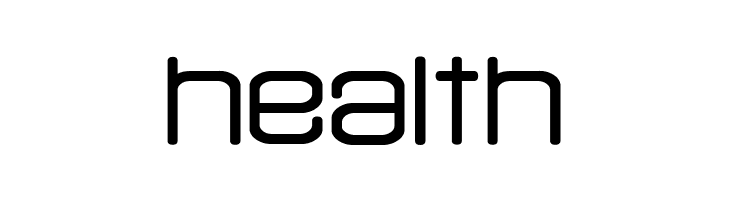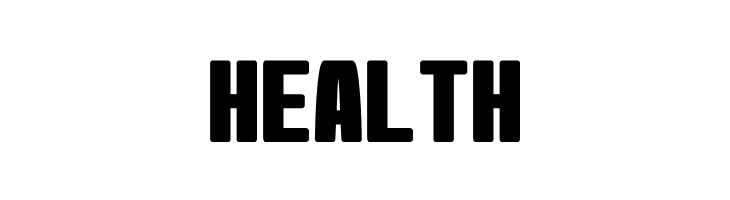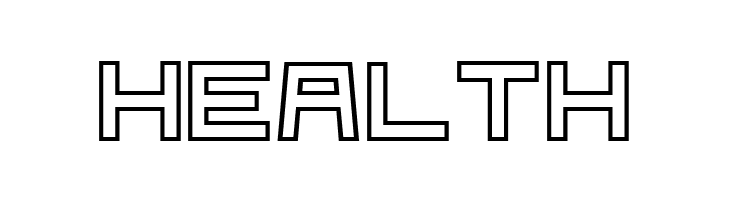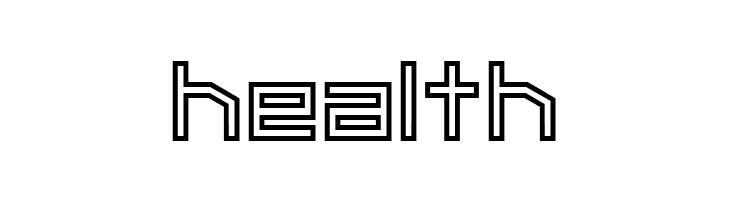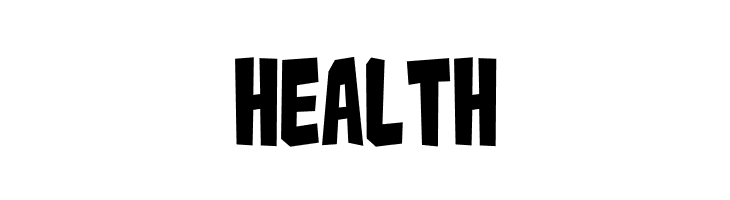
A bold, playful font with rounded edges and a whimsical, retro feel.
A bold, condensed font with a striking and cohesive design.
A modern, geometric font with rounded edges and uniform character width.
A bold, blocky font with high contrast and a modern, impactful style.
A distressed, horror-themed font with jagged, uneven characters.
A geometric, futuristic outlined font with a technical and modern appearance.
A geometric, outline font with a futuristic and digital style.
A bold, futuristic font with geometric and industrial elements.
A bold, angular font with a monstrous and imposing style.
A bold, rounded, and playful font with a hand-drawn appearance.